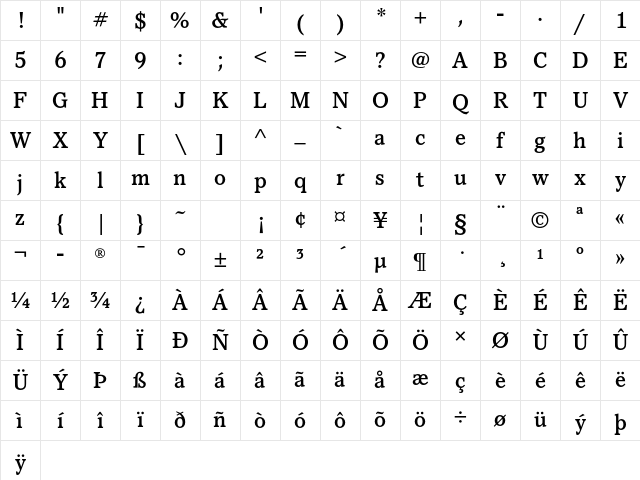
Pacella ITC Std Medium
Designer: Vincent Pacella
Design Context for Pacella ITC Std
Pacella ITC Std is a composed and adaptable typeface that performs quietly and consistently across a wide range of design contexts.
Pro Tip: Use Pacella ITC Std in both headline and body roles to test its range before committing to a single application.